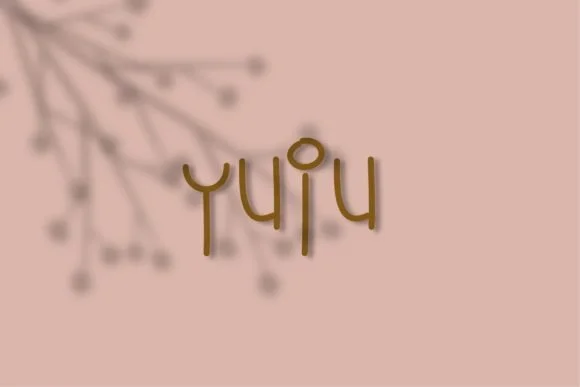
About Quakes Font
Quakes Font by Carolina Mejia is an expressive handwritten script that combines fluid, organic letterforms with an approachable personality and genuine warmth. This authentic-feeling typeface brings the natural charm of hand-lettered design to projects across multiple industries and creative disciplines. Whether you're designing elegant wedding invitation suites, crafting personalized thank-you cards, or building distinctive branding for a small business, Quakes delivers the genuine character clients and customers notice. The script also performs beautifully in rustic kitchen wall dΓ©cor, boutique product packaging, hand-lettered social media graphics, and custom merchandise applications where handwritten authenticity commands attention. Its organic letterforms work particularly well for creative projects that benefit from a personal, approachable voice, making it an excellent choice for indie designers, craft entrepreneurs, and brands seeking visual warmth. Quakes Font brings unmistakable dimension and personality to your creative work in ways that generic typefaces simply cannot replicate. The flowing, natural strokes create immediate visual interest while maintaining the legibility needed for both print and digital applications. Whether you're working on a detailed project or something quick, this script adapts beautifully across different sizes and contexts. Explore this handwritten typeface on Creative Fabrica and discover how authentic letterforms can transform your next creative venture.
Quakes Font is a script font that shines as a display or heading face. Pair it with a clean sans-serif or serif font for body text β the contrast creates a clear hierarchy while the two styles stay balanced and easy to read.